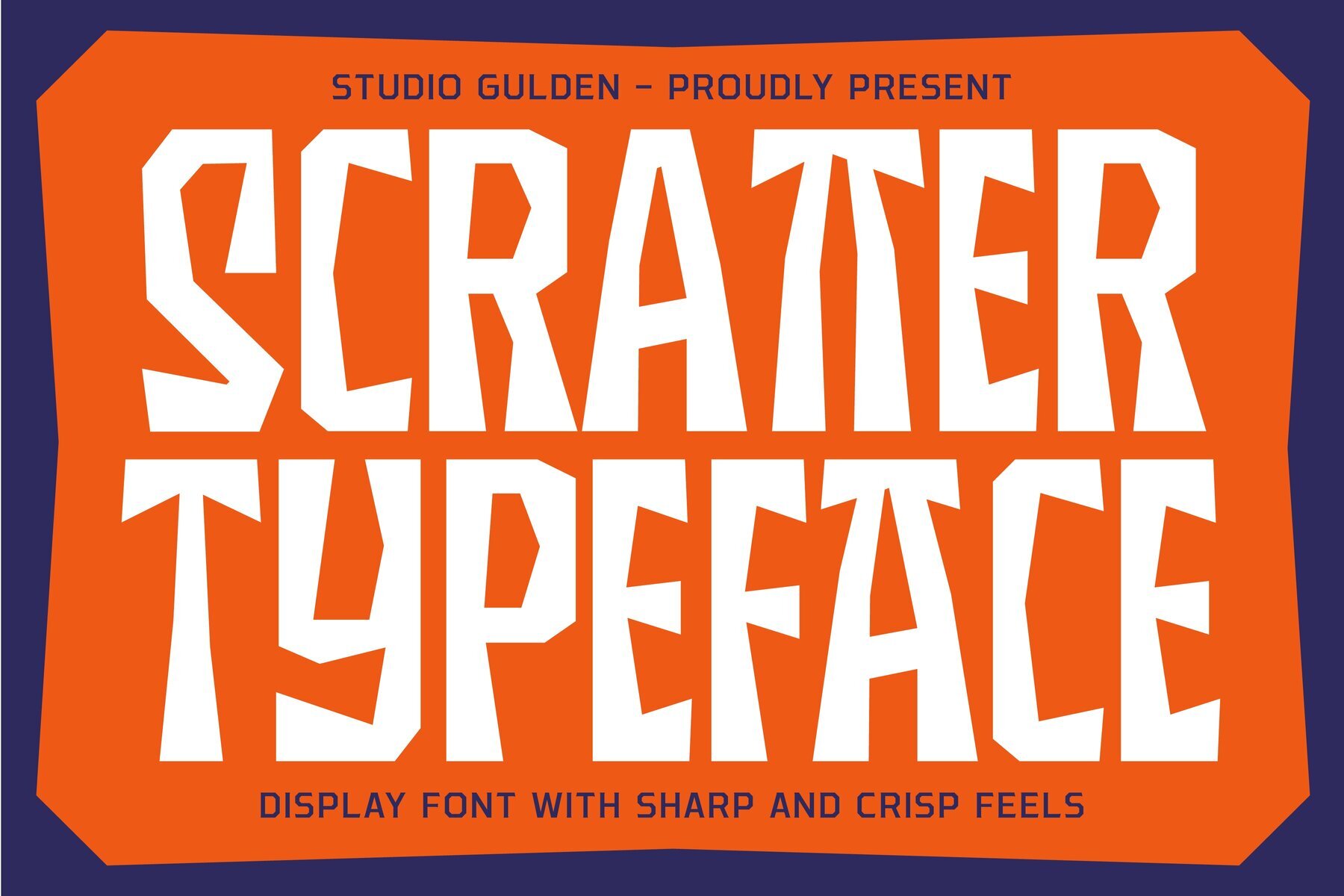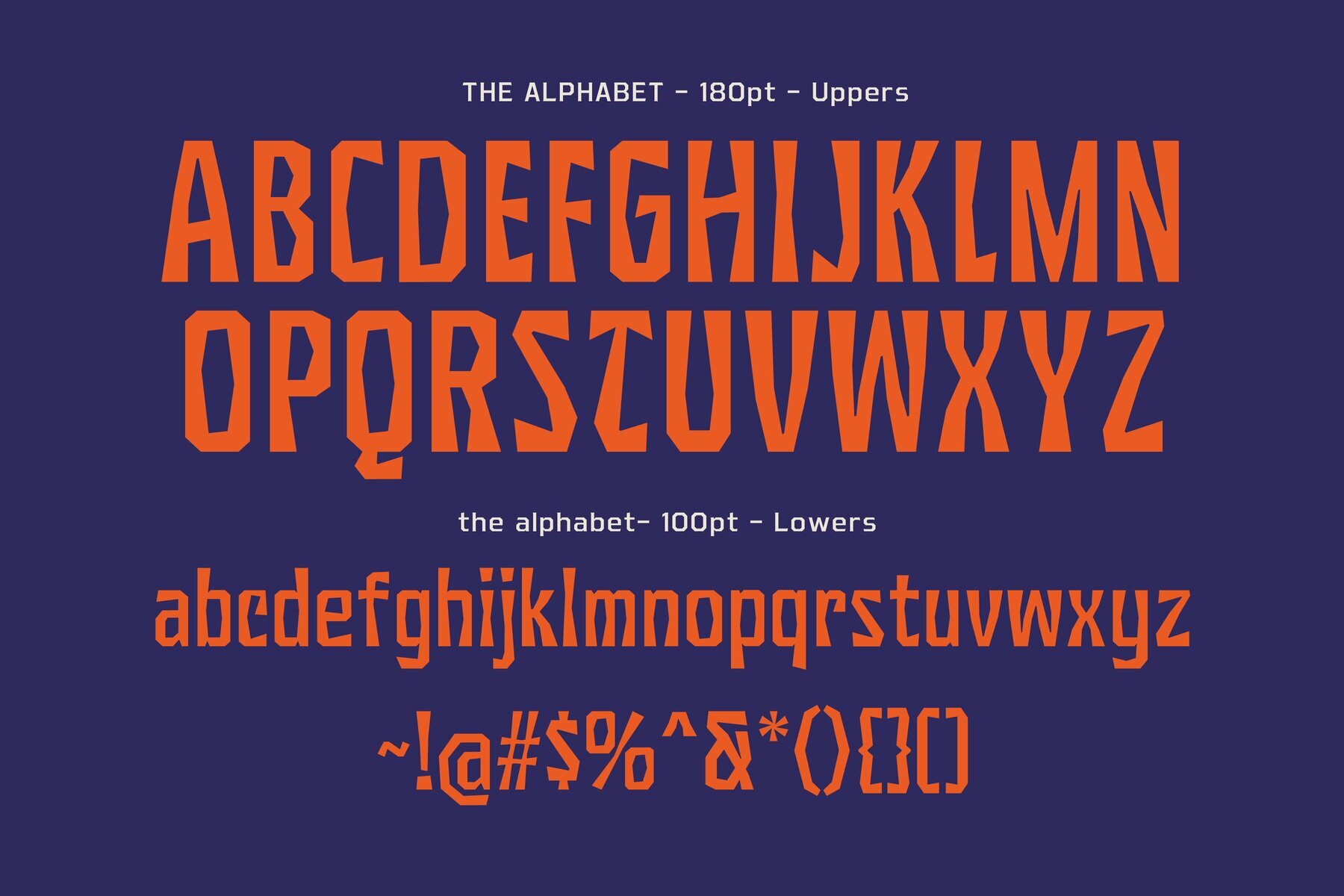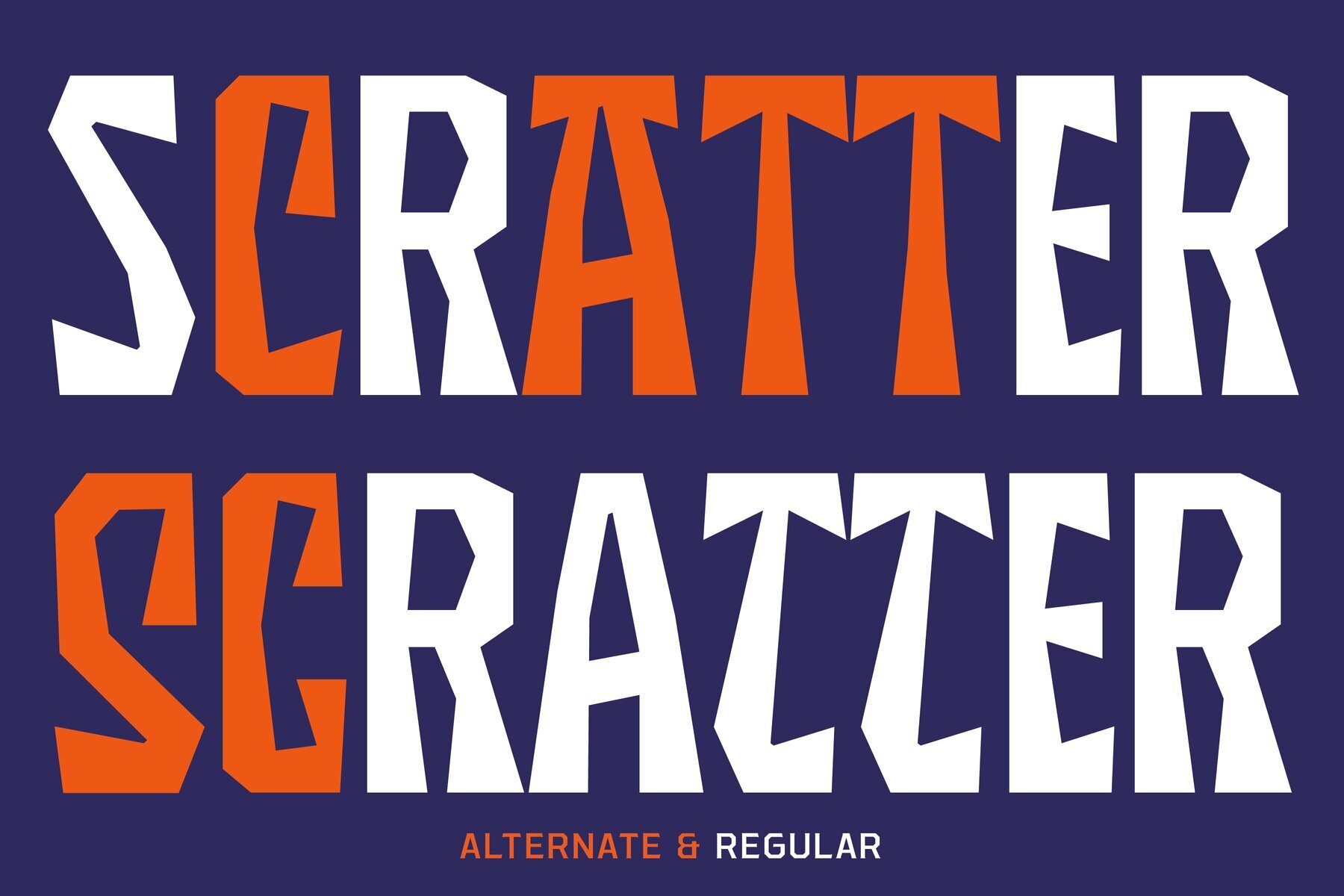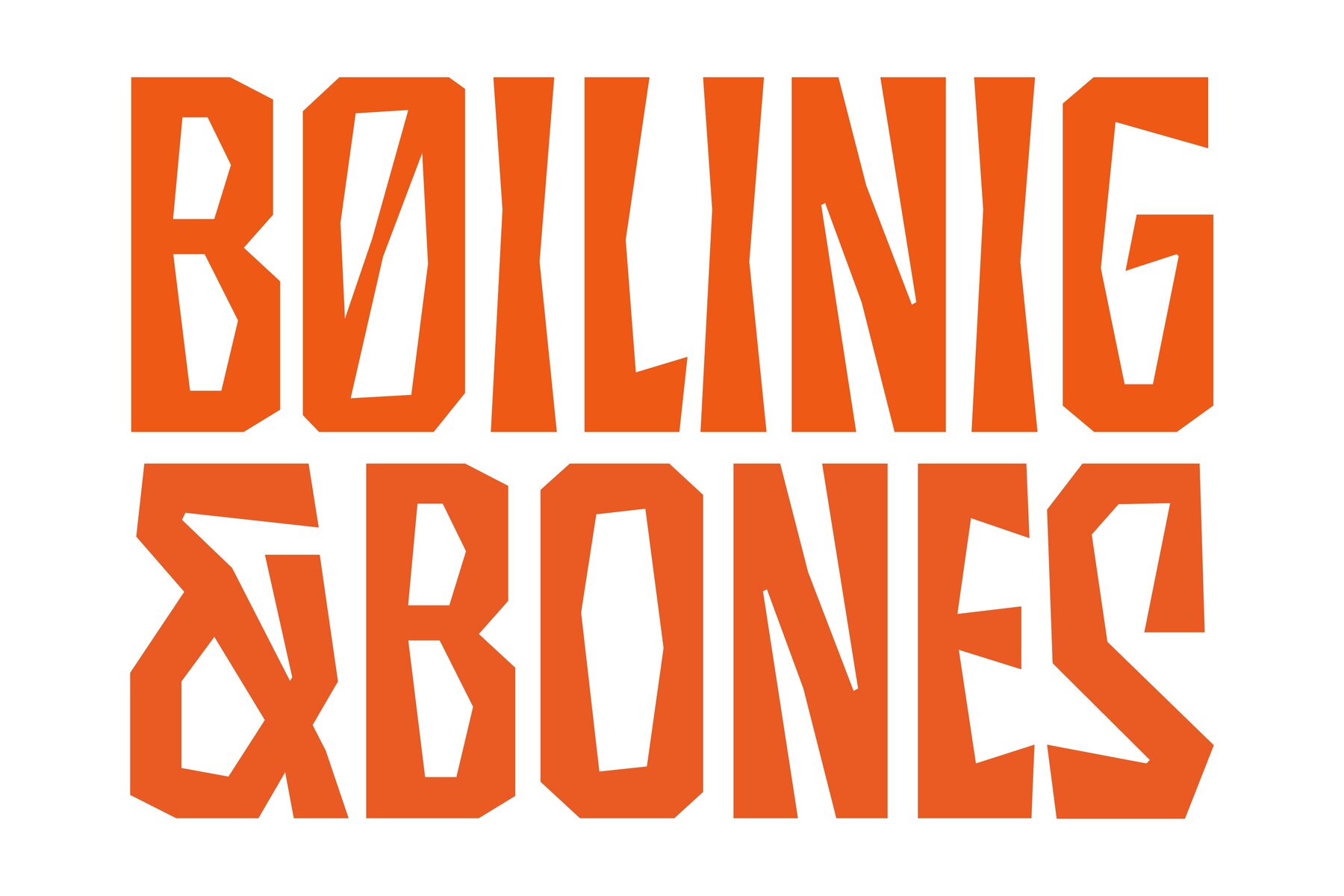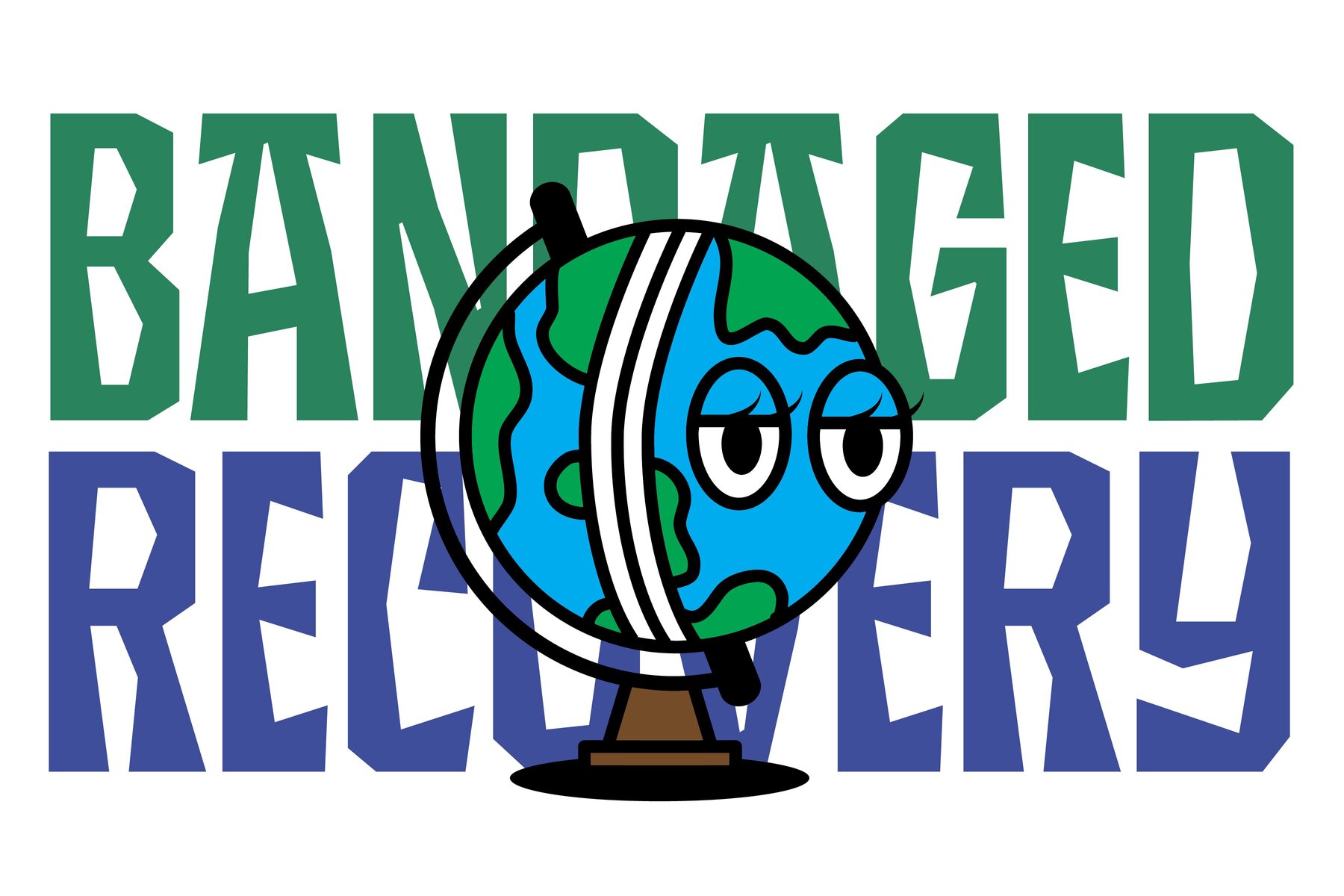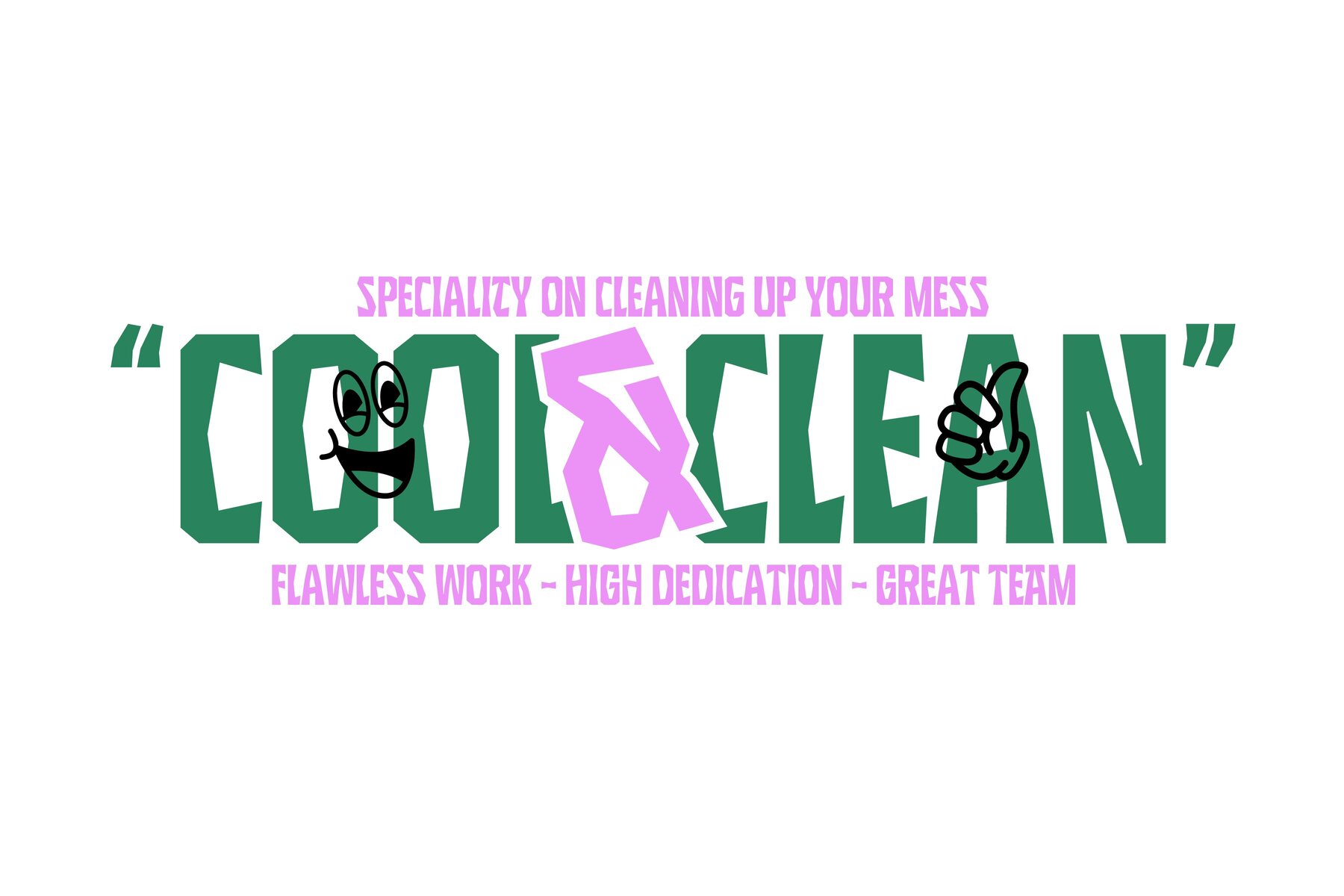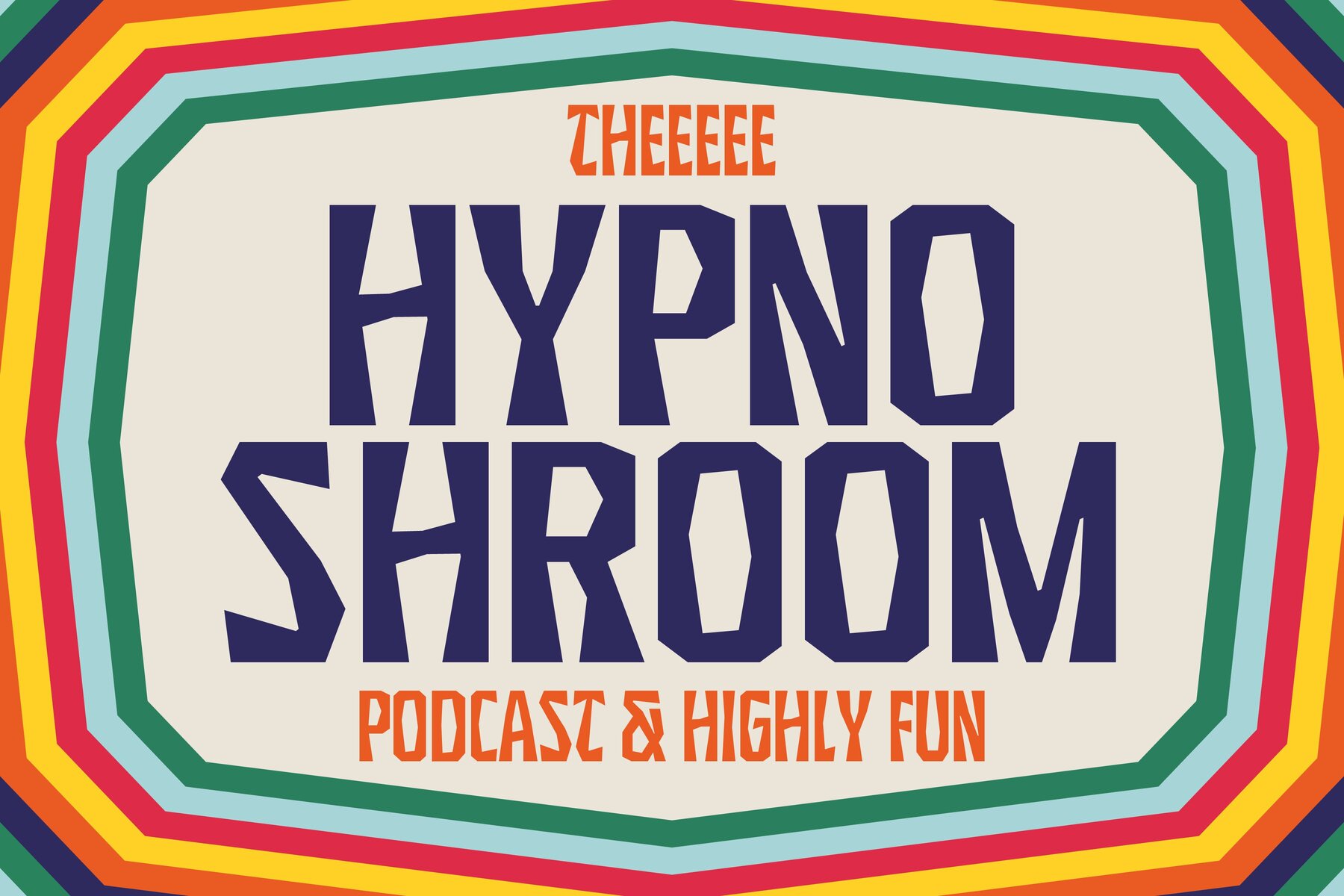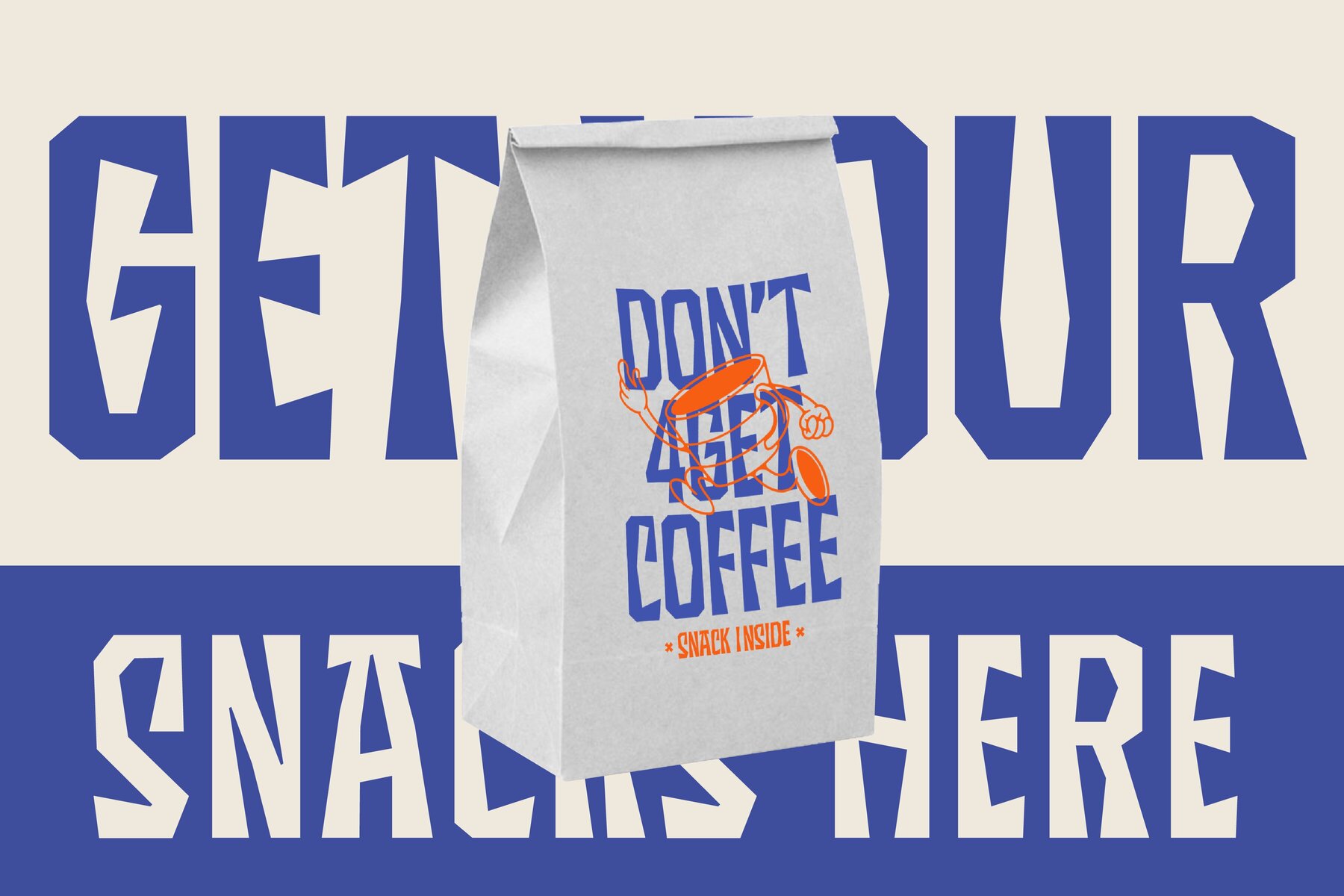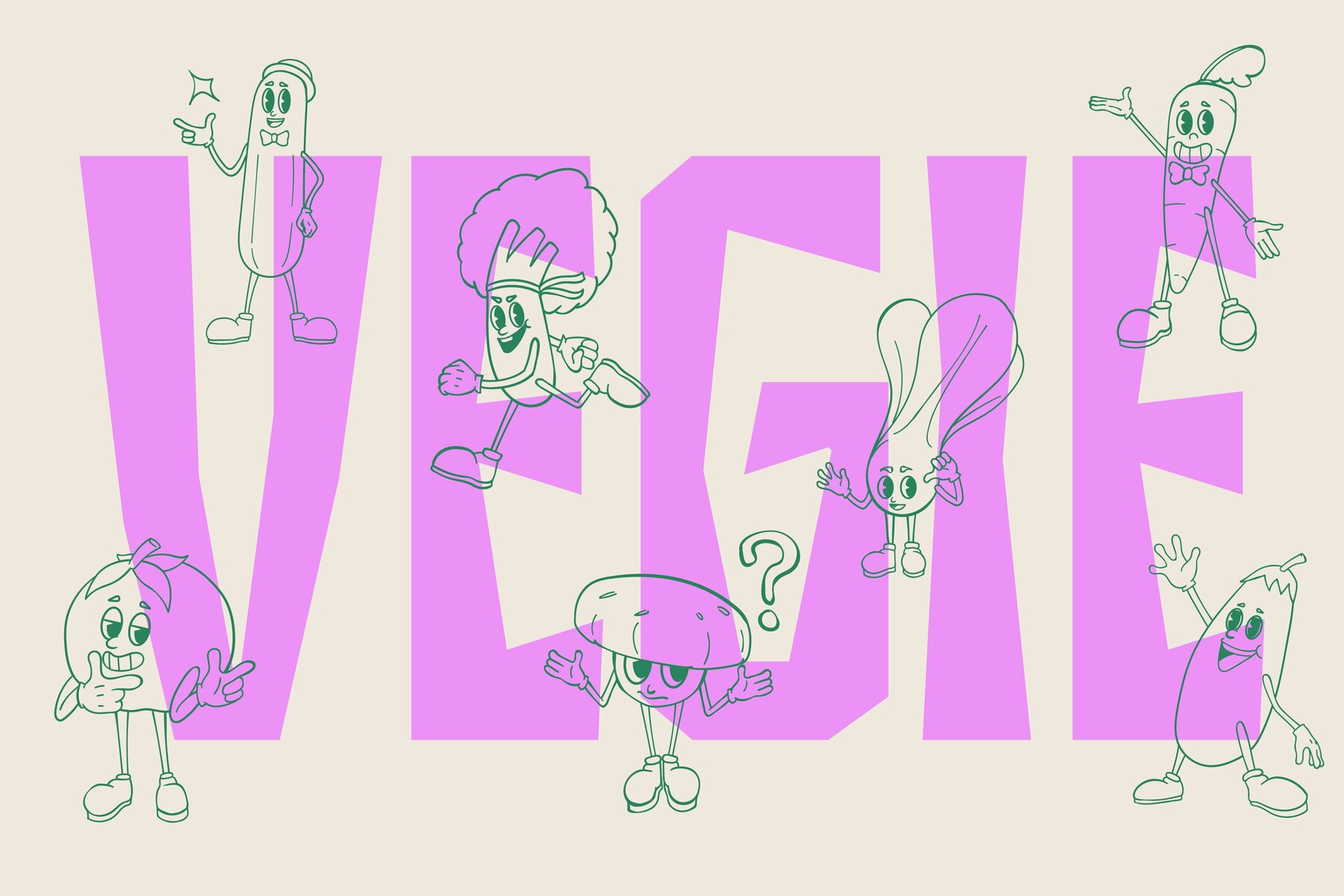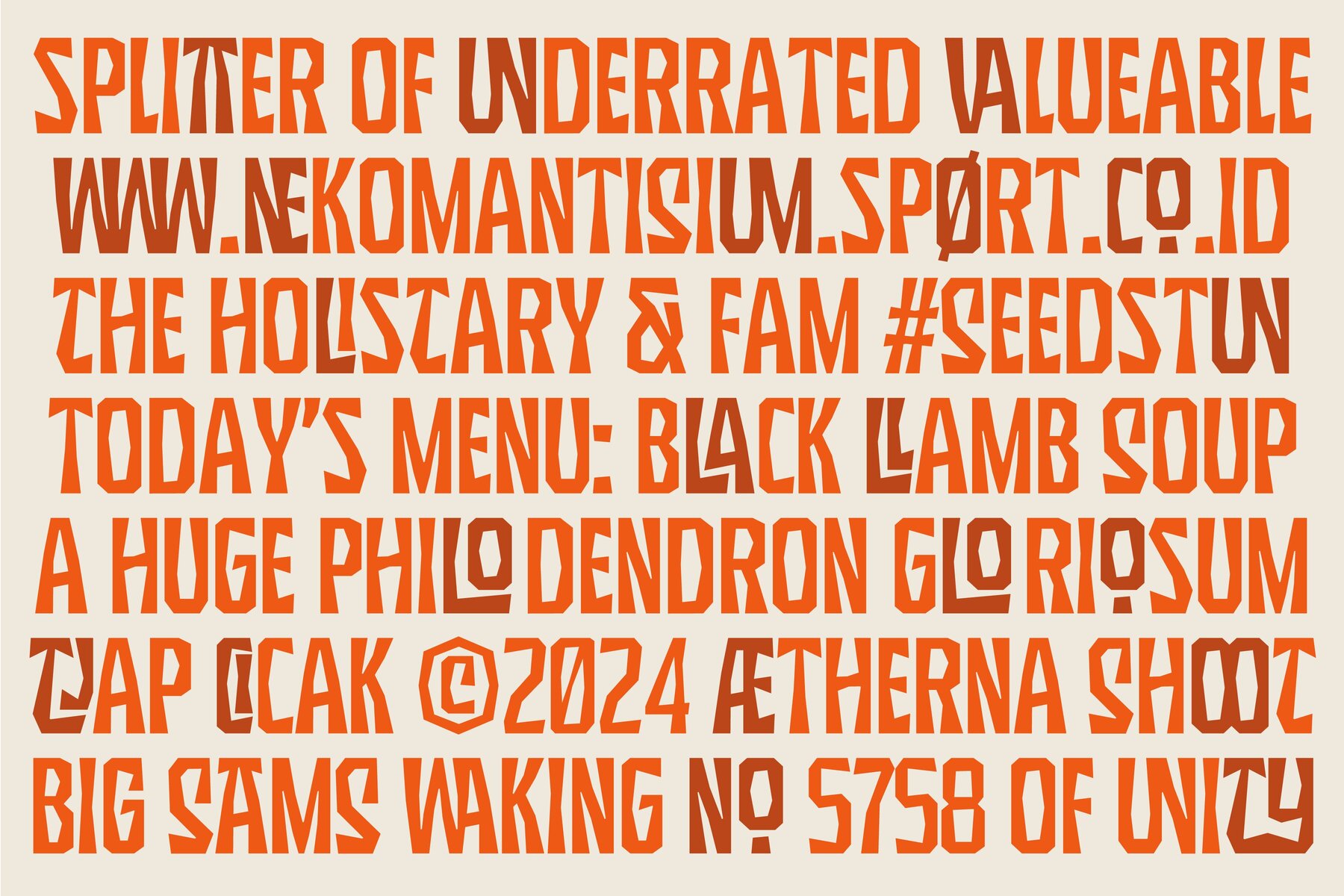
SG Scratter Font
SG Scratter is a dynamic and eye-catching display font that is sure to make any design stand out. With its sharp and crisp edges, this font exudes a sense of boldness and confidence that is perfect for headlines, logos, and branding projects. This font is available in six distinct styles, each with its own unique personality and character. From the sleek and sophisticated SG Scratter Regular to the more daring and adventurous SG Scratter Bold, there is a style to suit any design need. With its clean lines and modern aesthetic, SG Scratter is versatile enough to be used in a variety of design applications, from print to digital media. Its legibility and clarity make it a great choice for everything from posters to websites. So if you're looking for a font that combines elegance and edge, look no further than SG Scratter. With its sharp angles and bold lines, it's sure to make your design pop and stand out from the crowd.